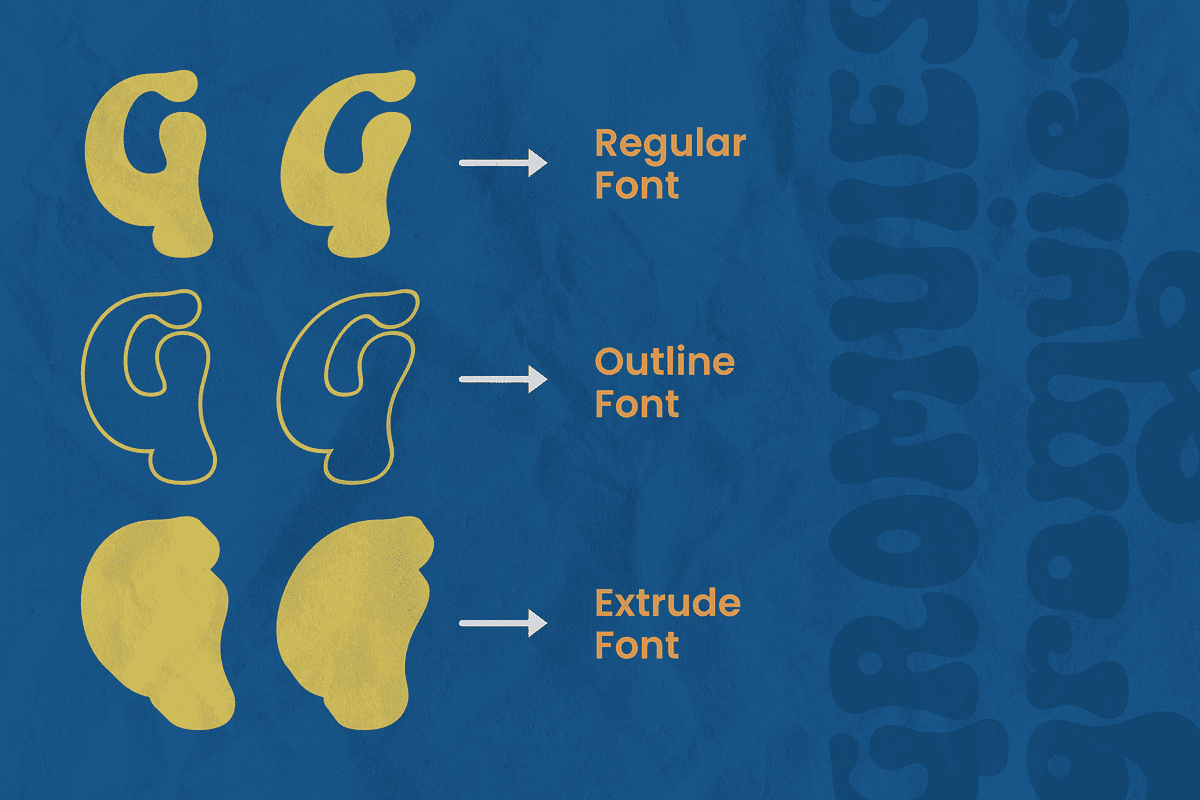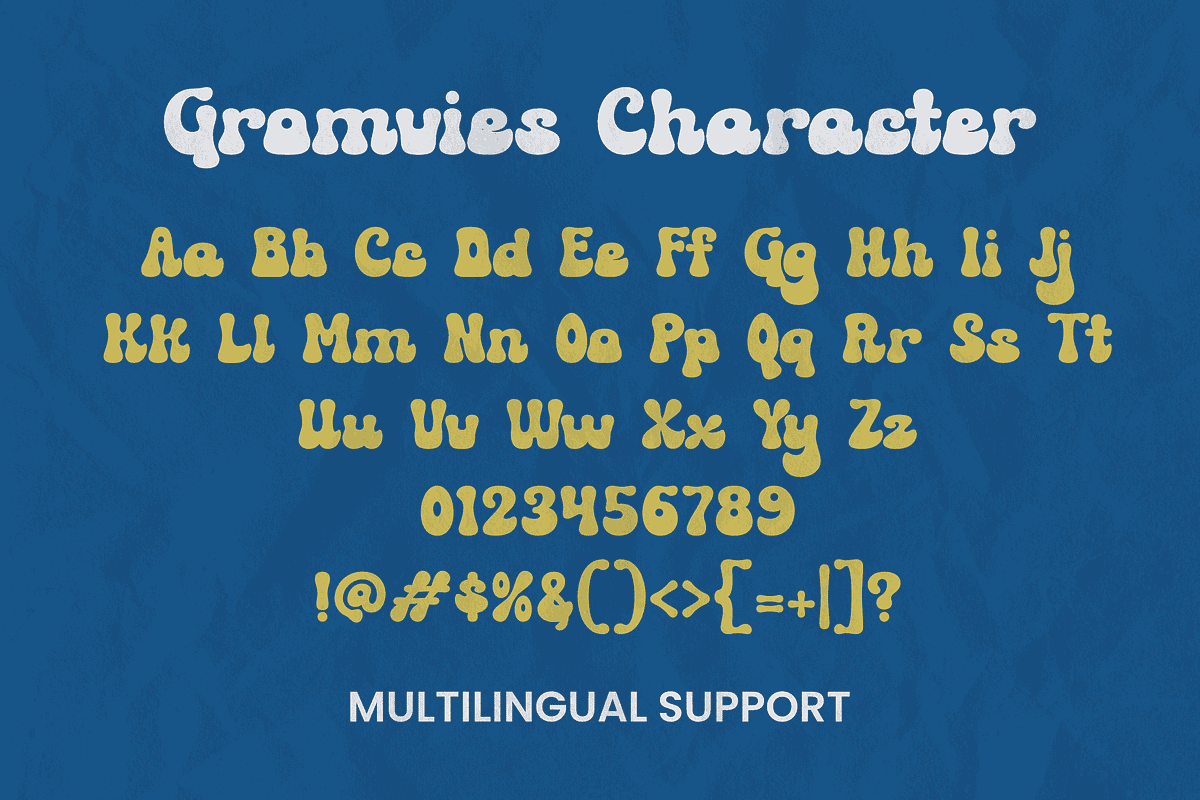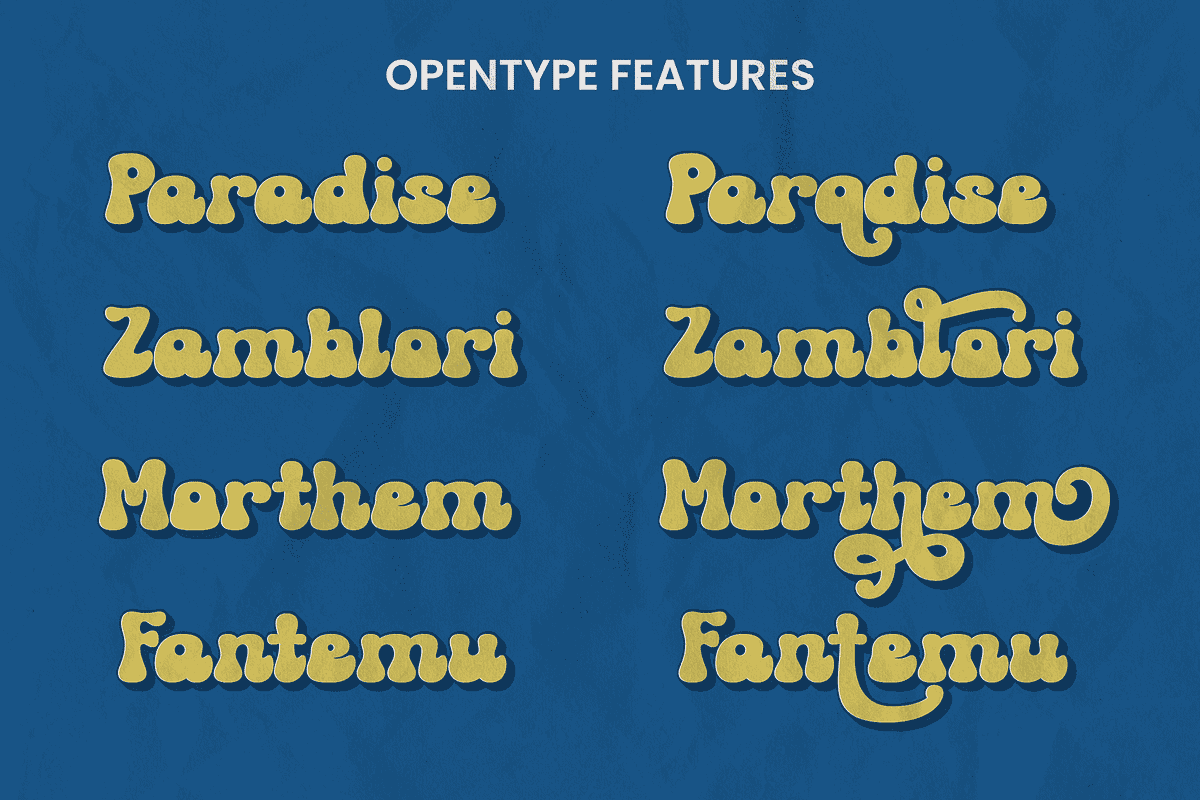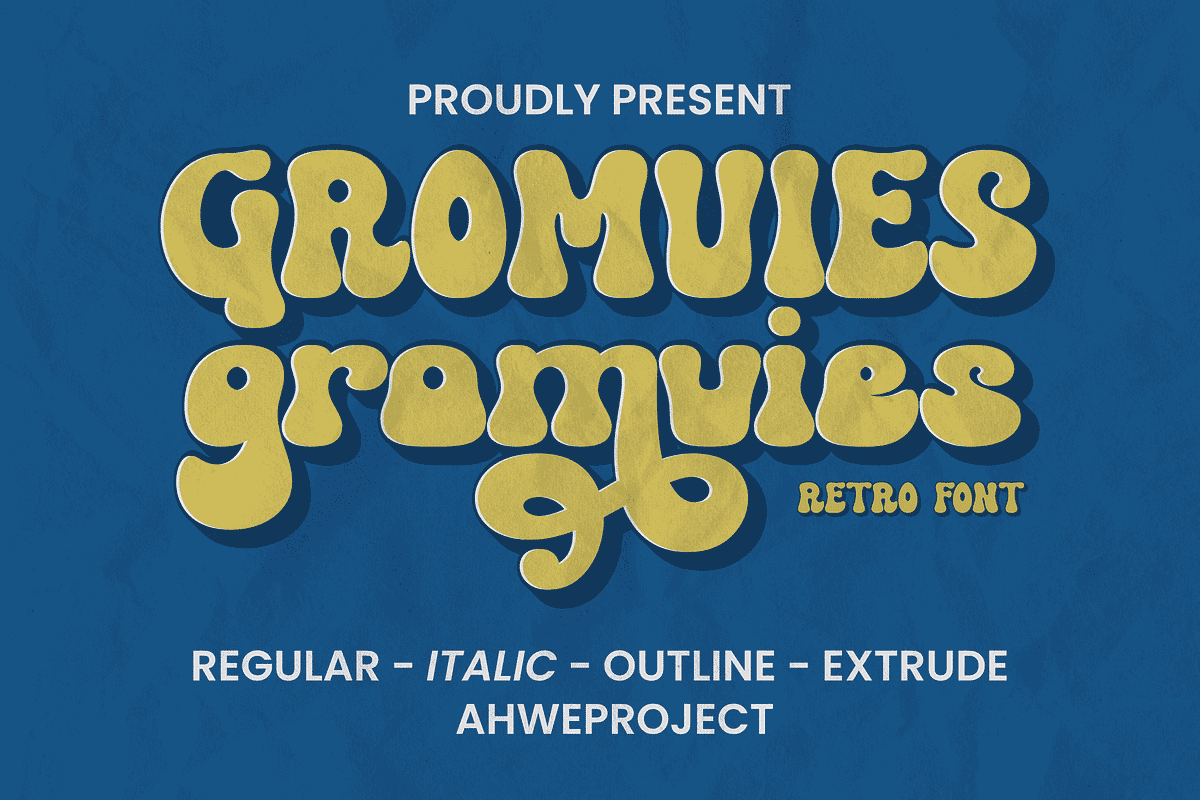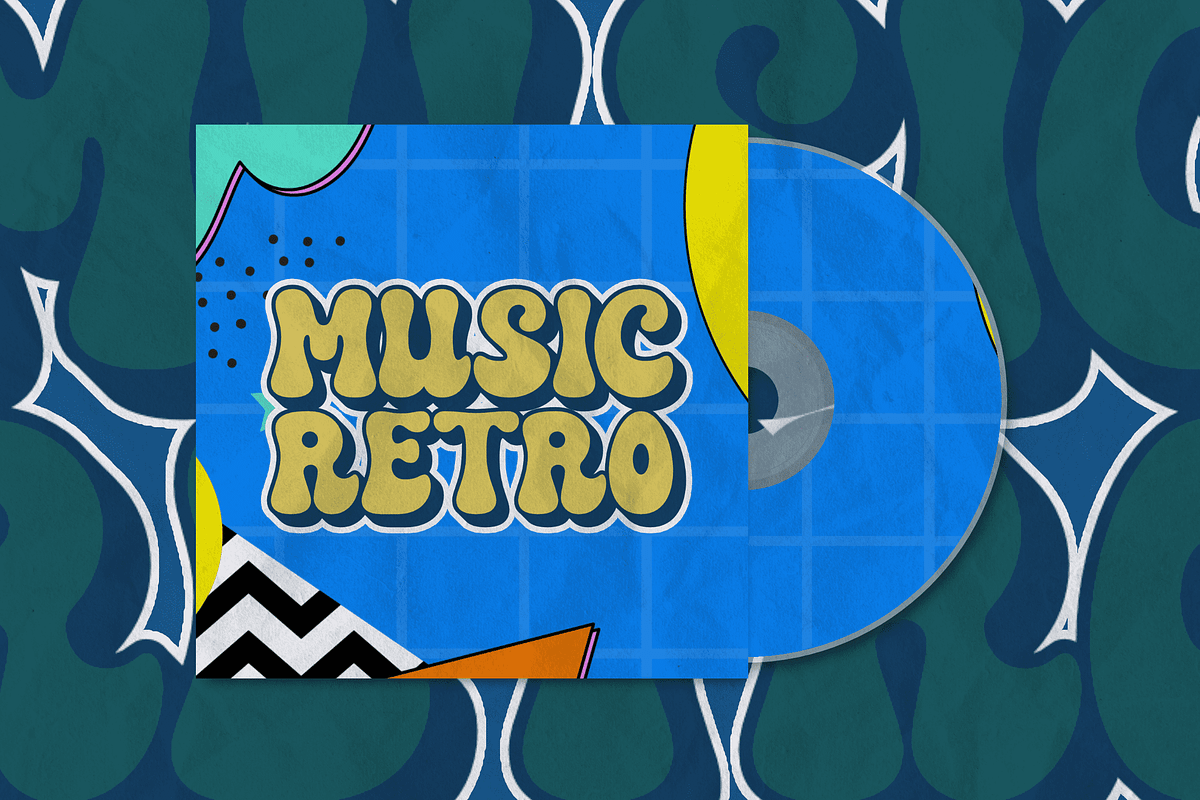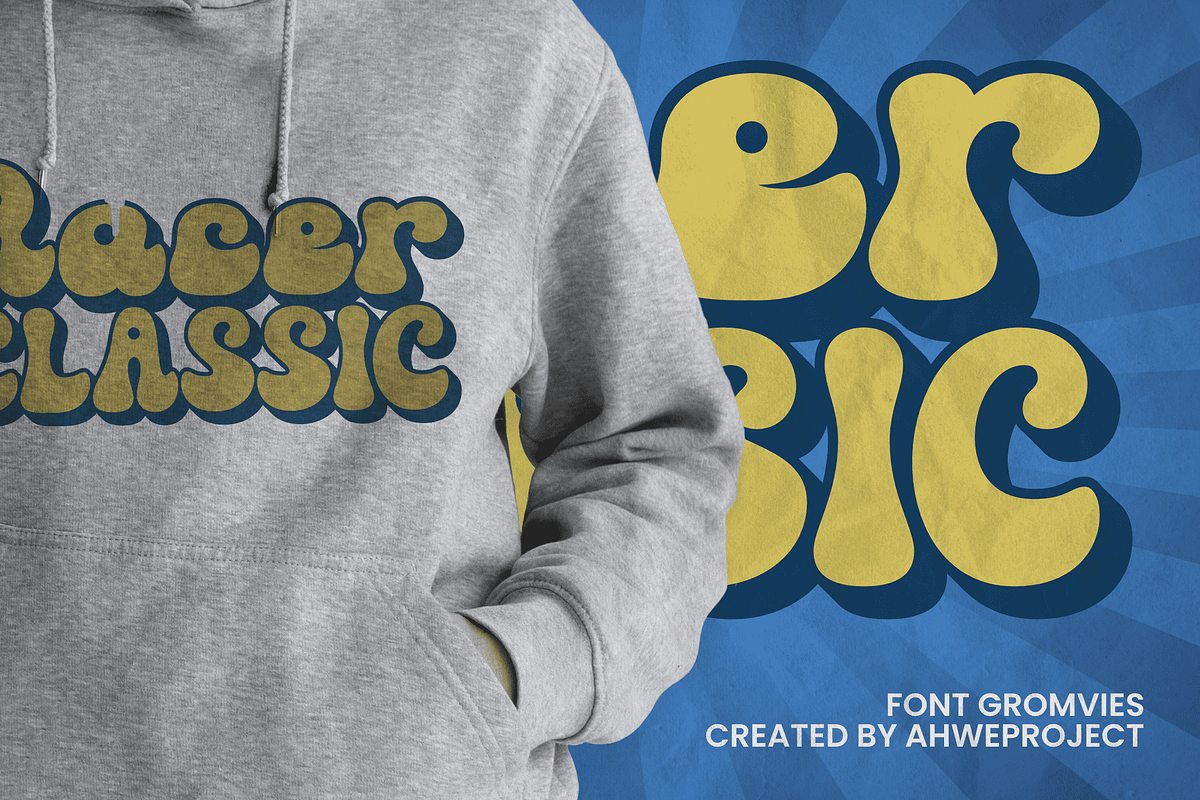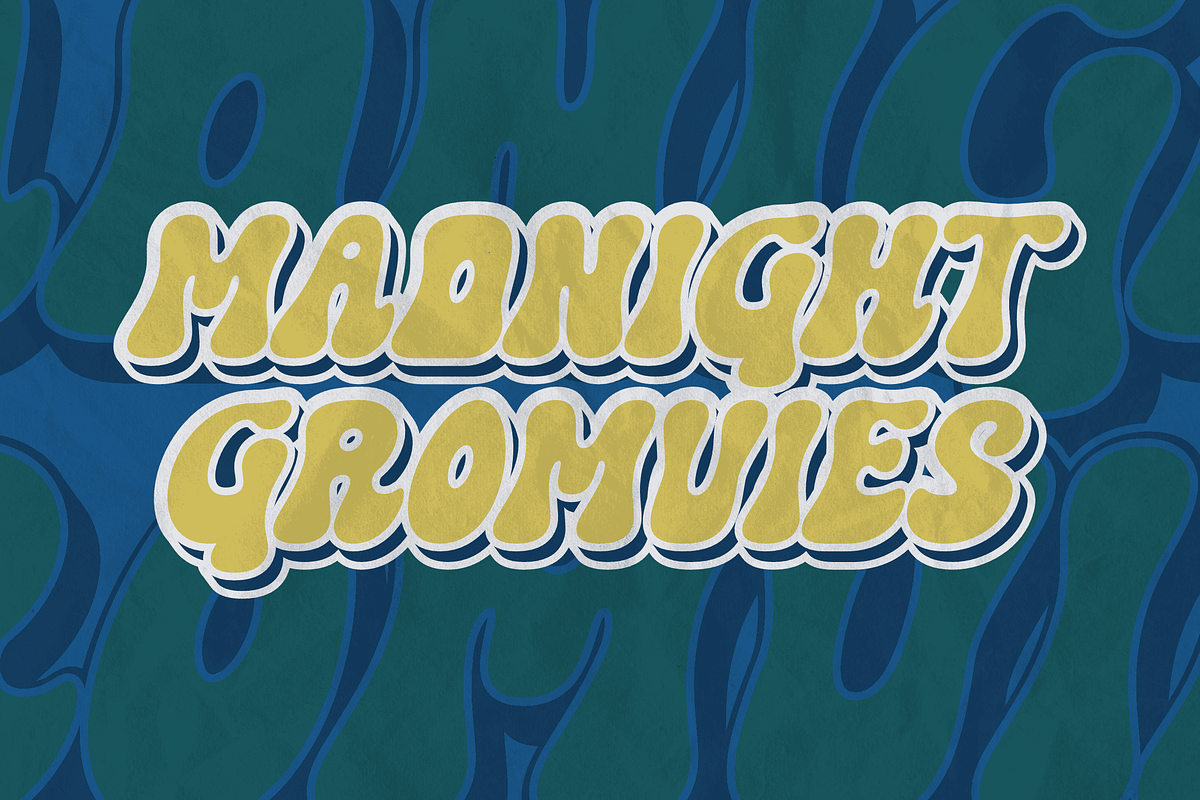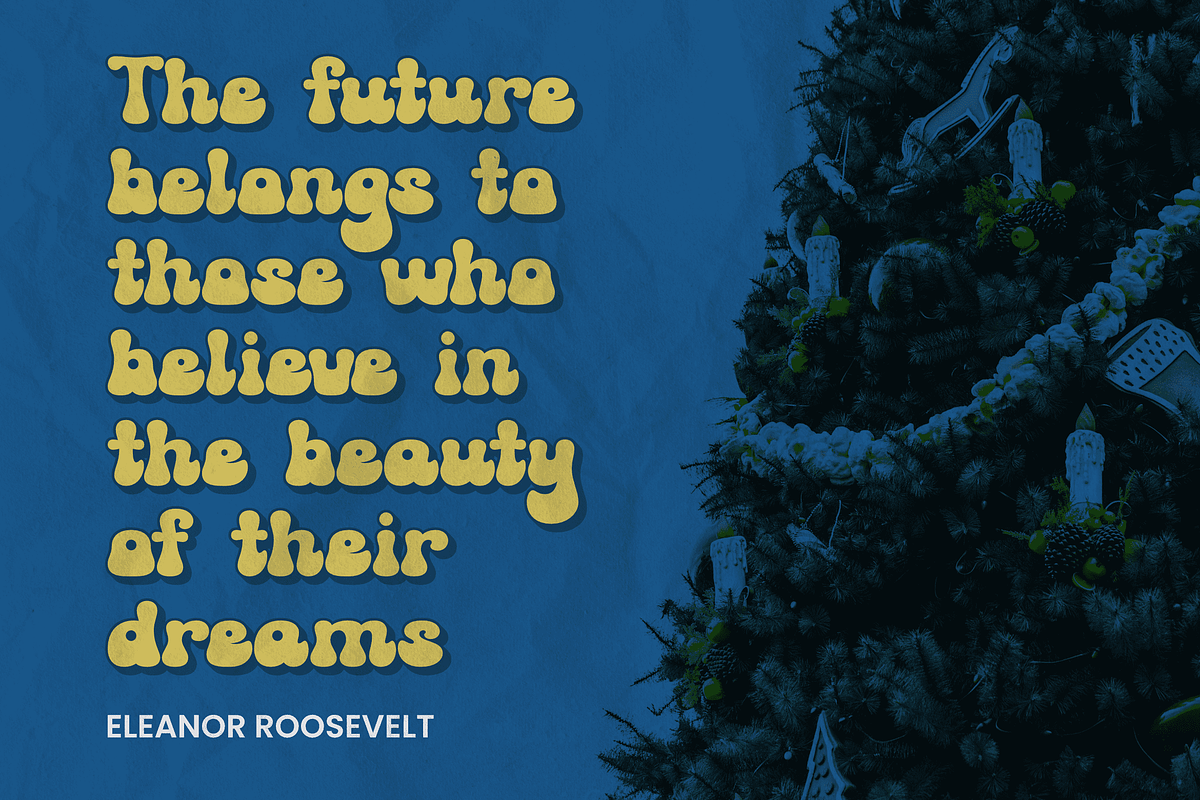
Gromvies - Retro Display
Gromvies feels playfully nostalgic and delivers an incredible vintage retro aesthetic. Inspired by unique retro themes, this fun typeface is suitable for any vintage theme concept, Illustration posters, stickers, fun graphics, and more. Masterfully designed to become a true favorite, this font has the potential to bring each of your creative ideas to the highest level!